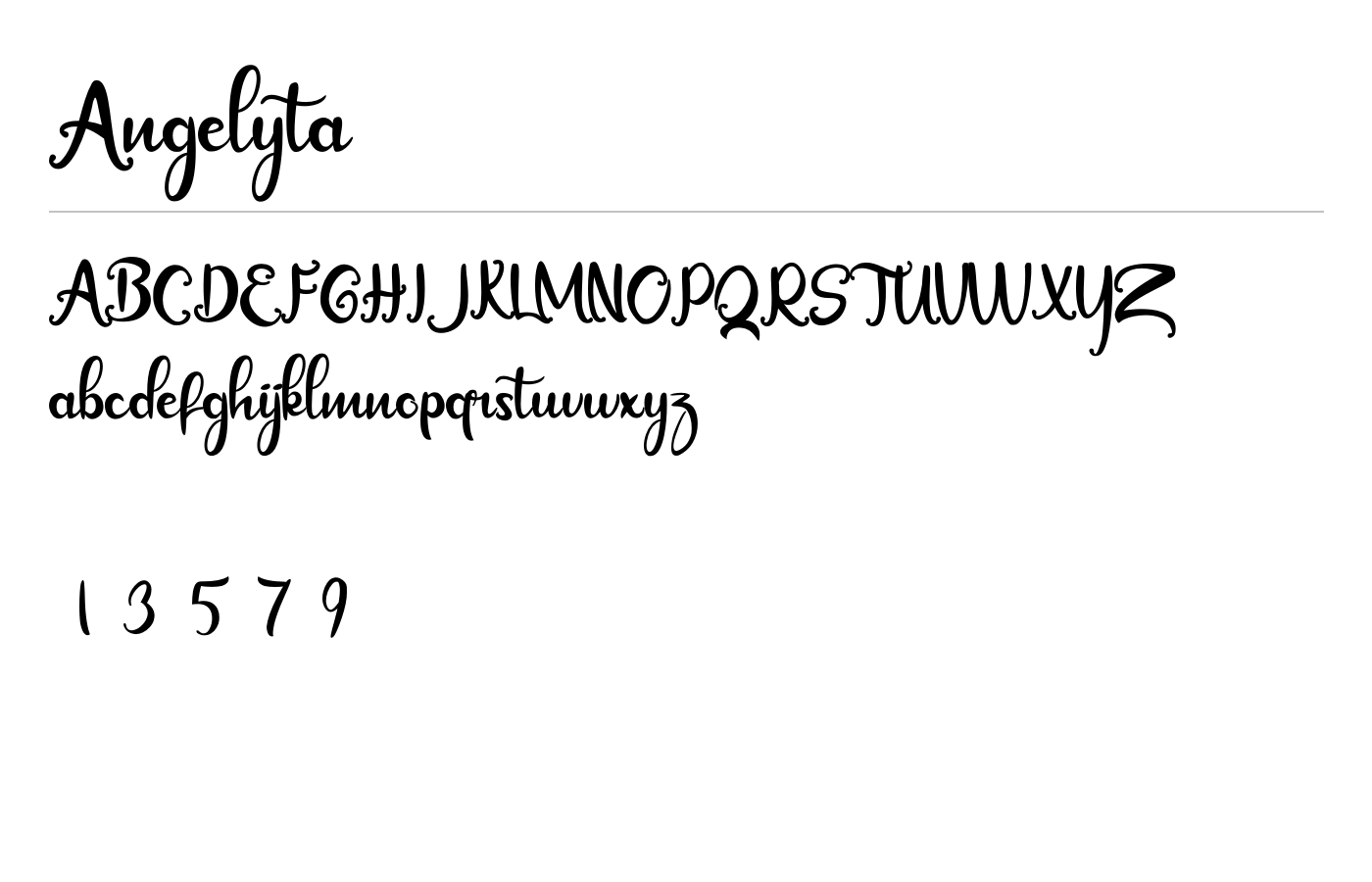
Angelyta is a charming script font with playful, handwritten letterforms characterized by flowing curves and elegant loops, giving it a warm, friendly feel. Its medium weight and fluid strokes make it ideal for creative and personal branding, invitations, or any design that benefits from a stylish and approachable touch. This font stands out in headlines, logos, and decorative purposes where a touch of personality and elegance is desired.
Angelyta Font
About Angelyta Font
| Font family | Angelyta Font |
| Designer | Skiiller studio - m irfan mahmudin - nganjuk |